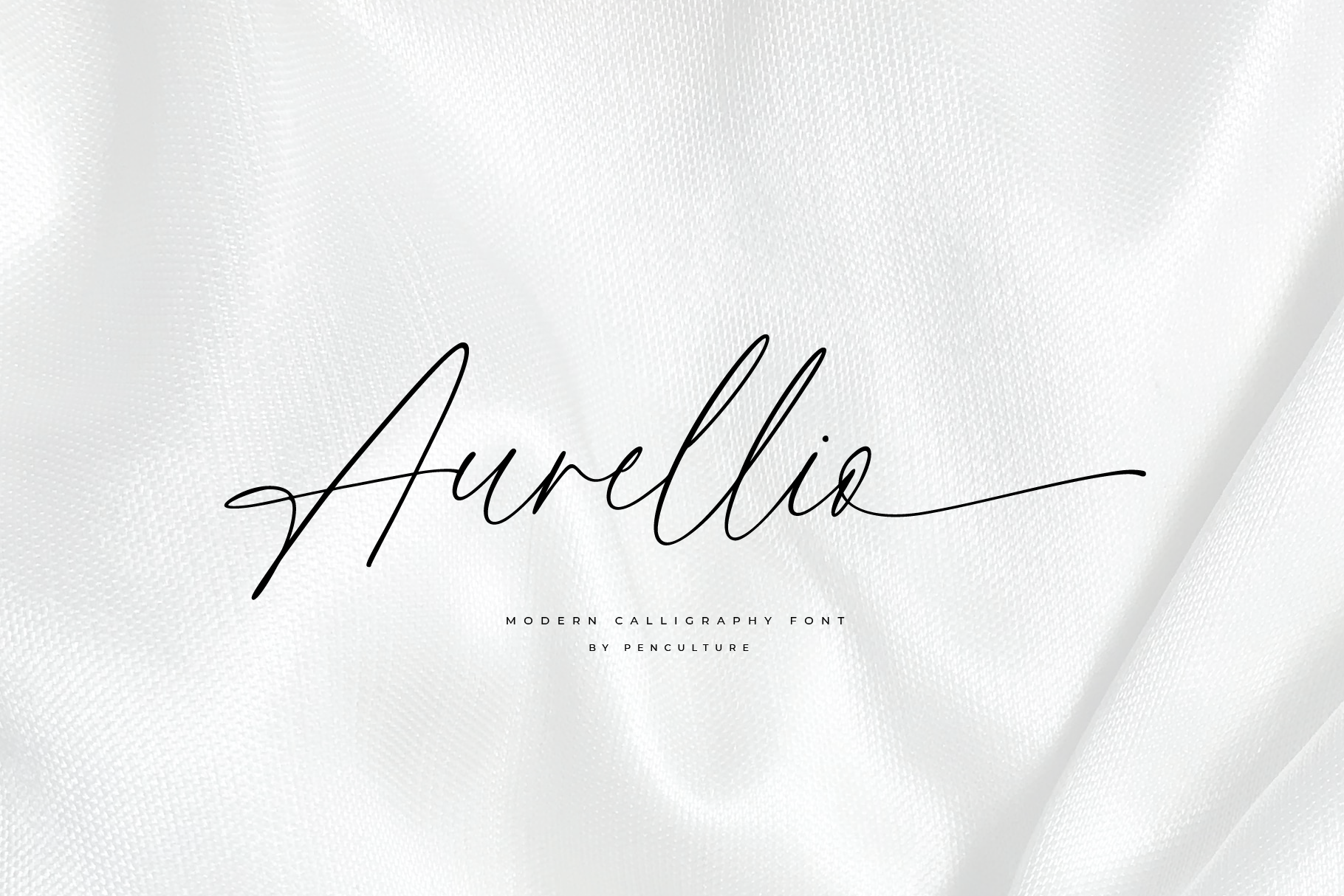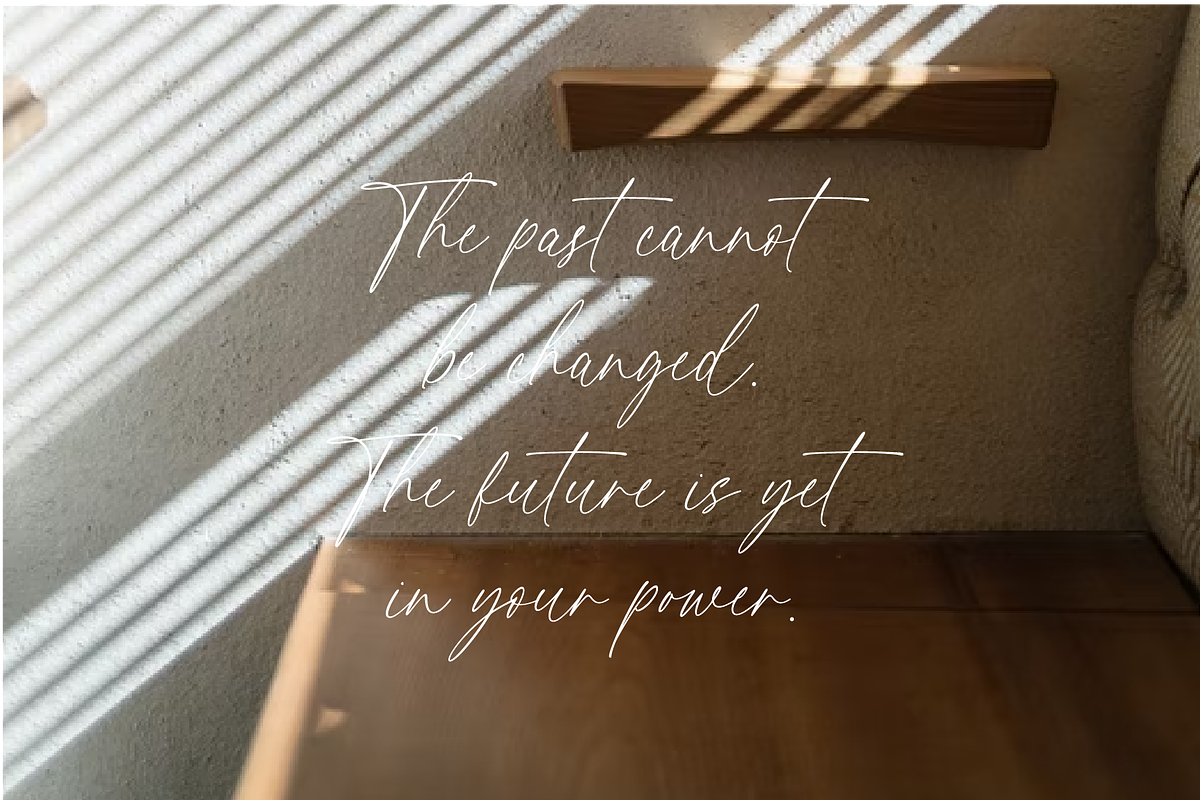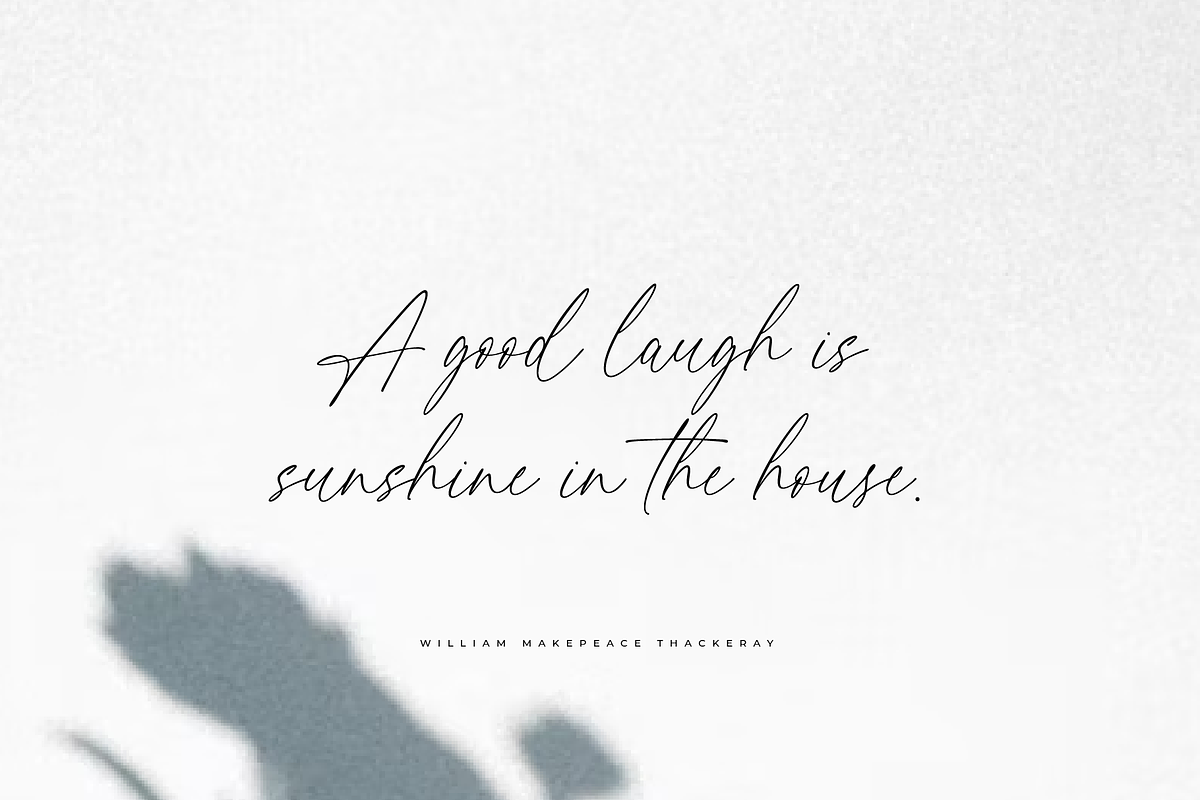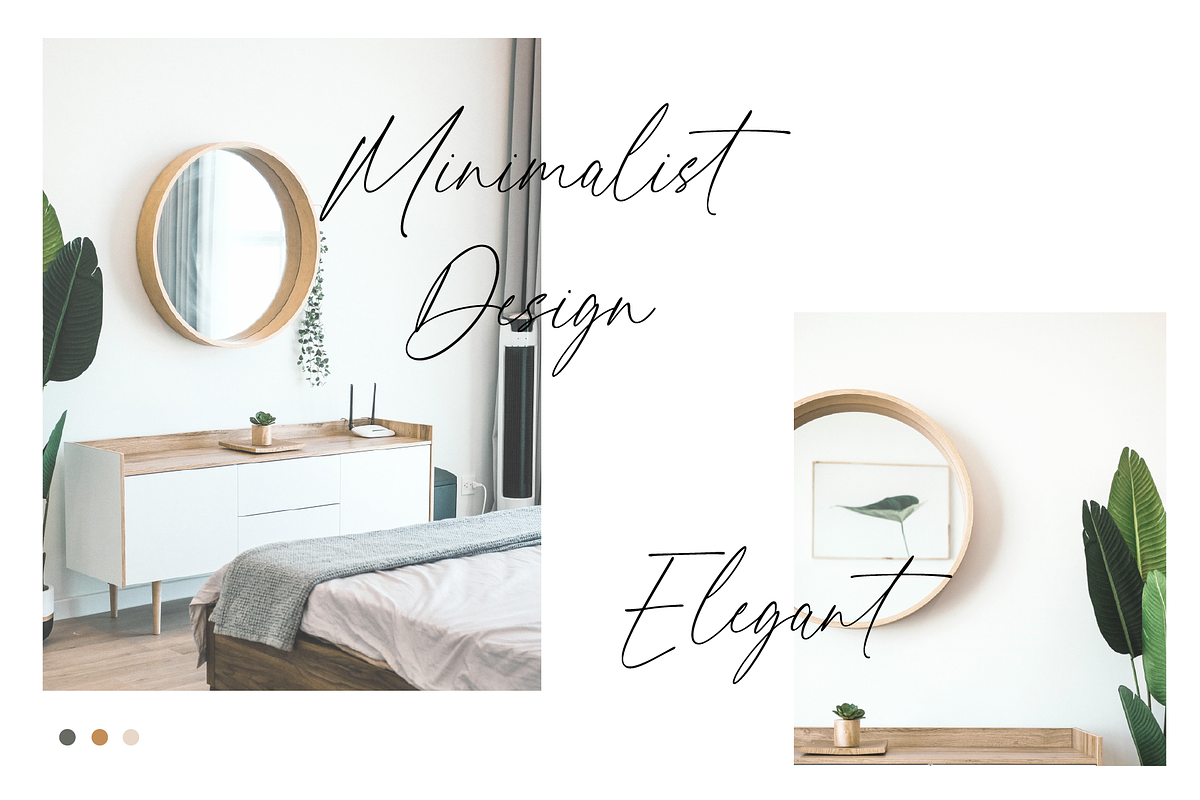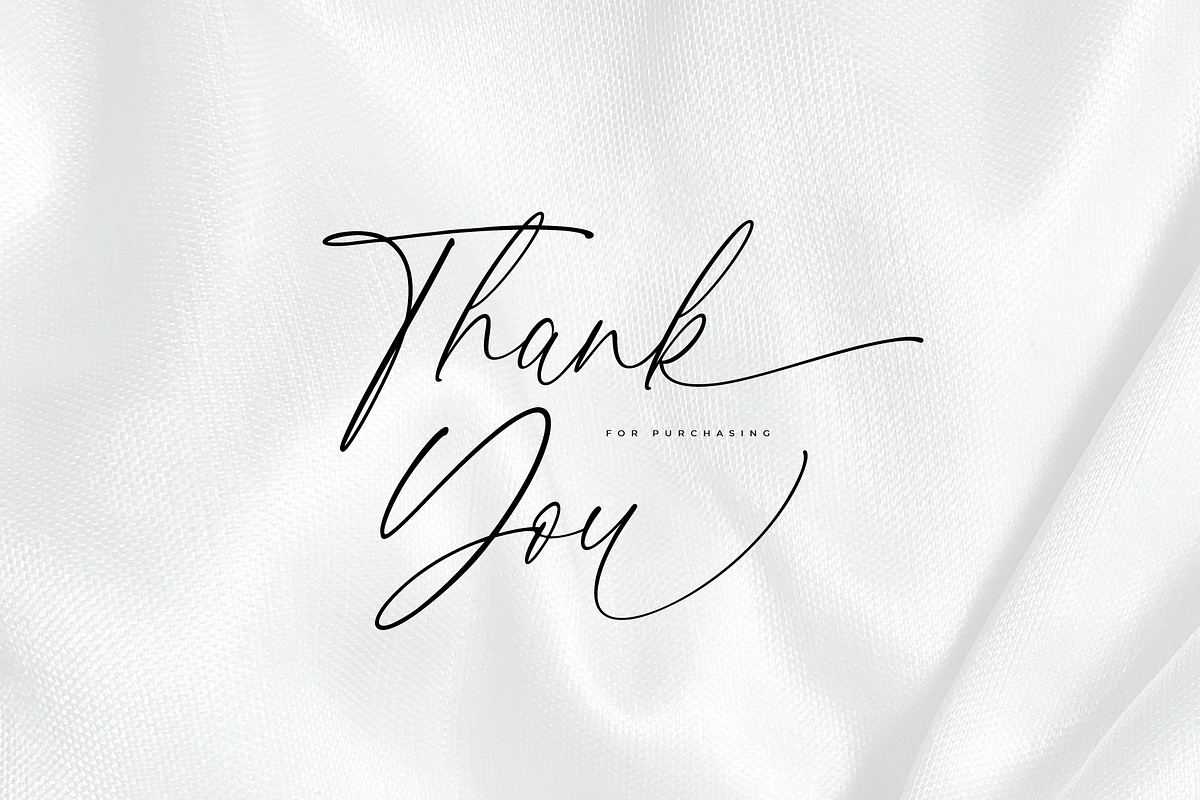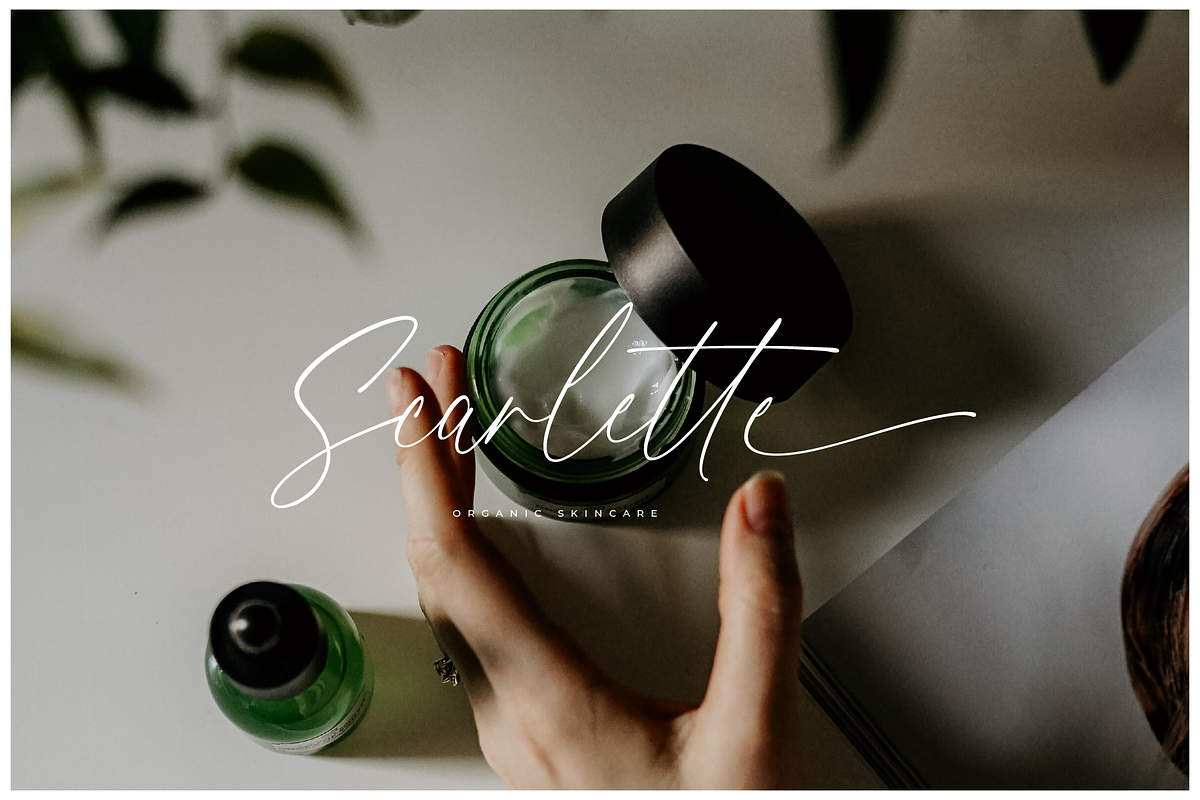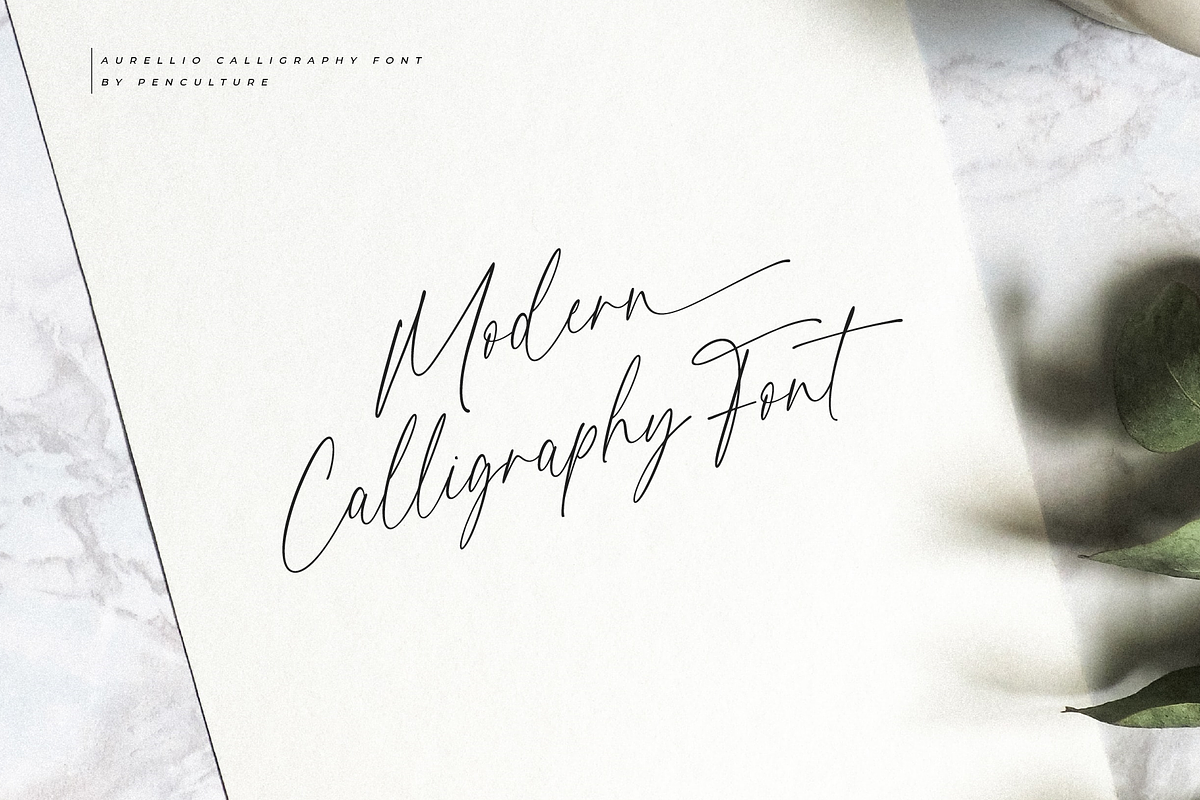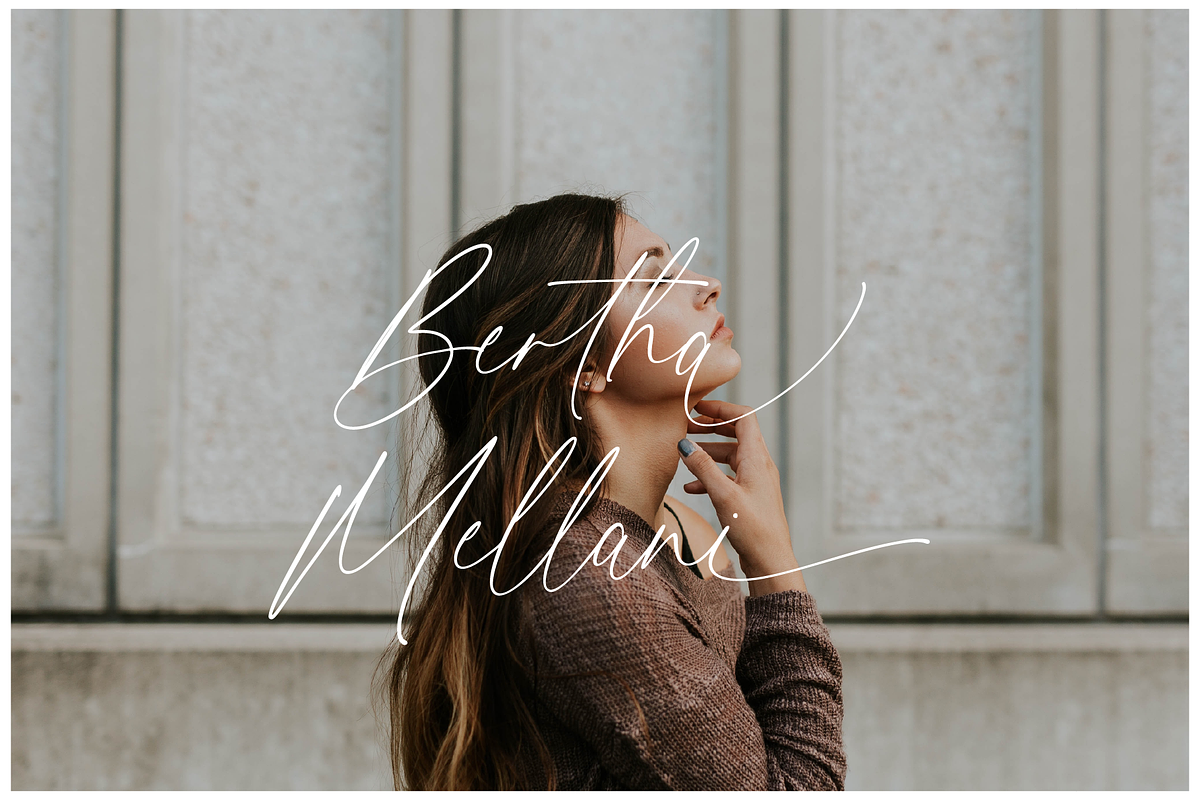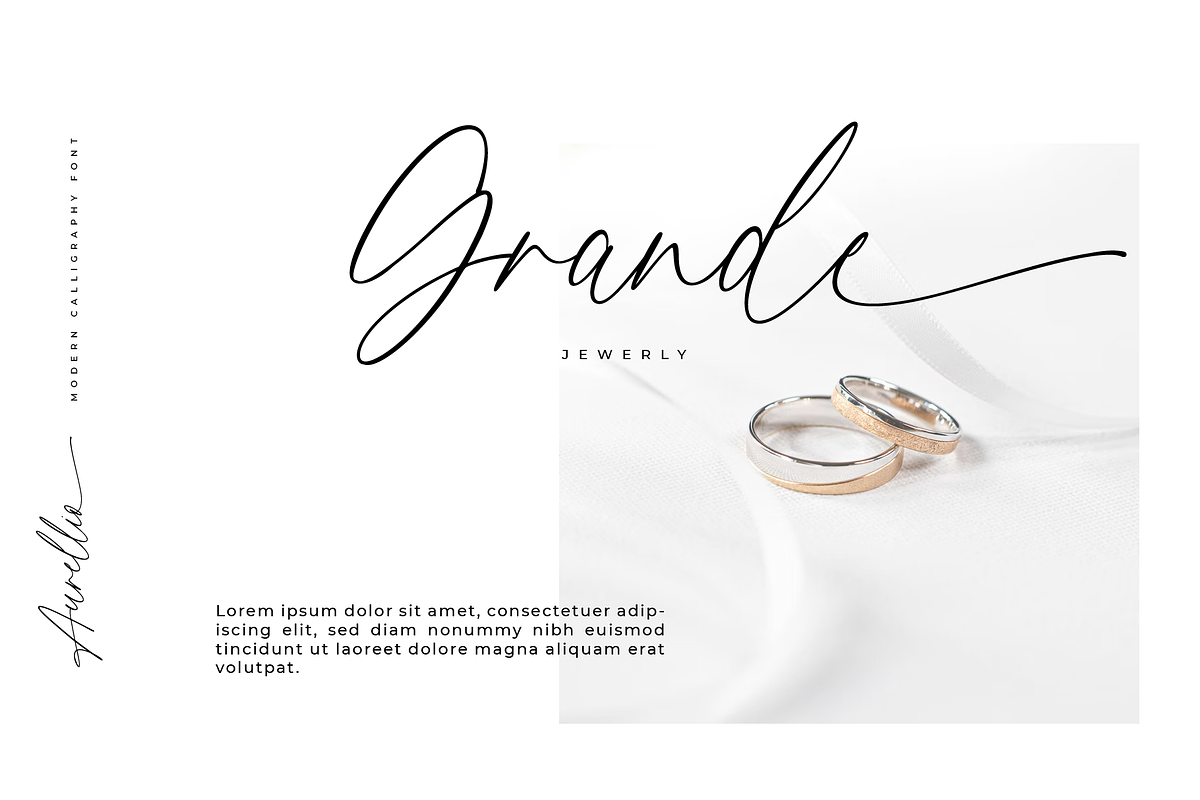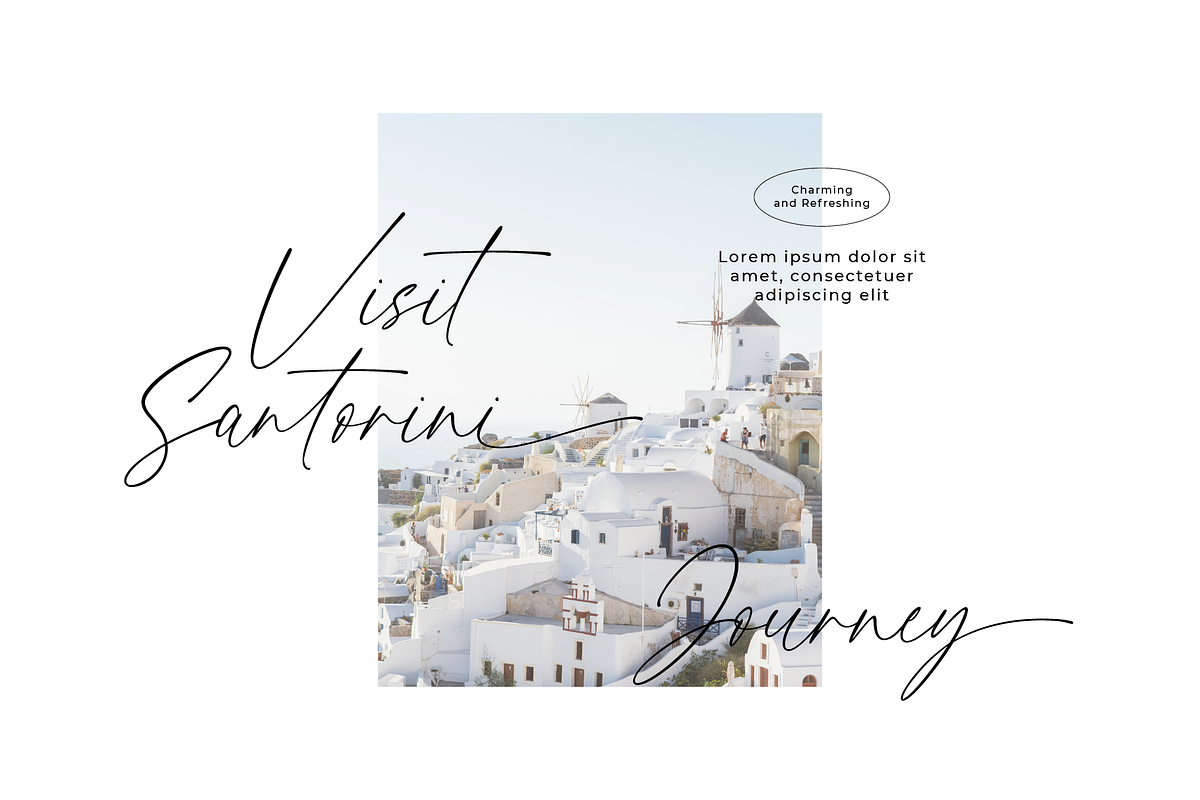
Aurellio - Modern Calligraphy Font
Proudly present "Aurellio - Modern Calligraphy Font"
A clean and smooth font made by original handwriting. You can apply this font for various needs such as branding, logos, watermarks or signatures. wedding invitations and much more.
Aurellio includes fully uppercase and lowercase letters, numbers and punctuation, ligatures and swashes that you can easily access.